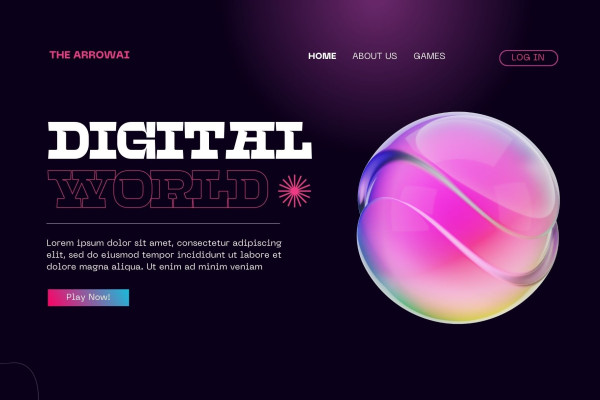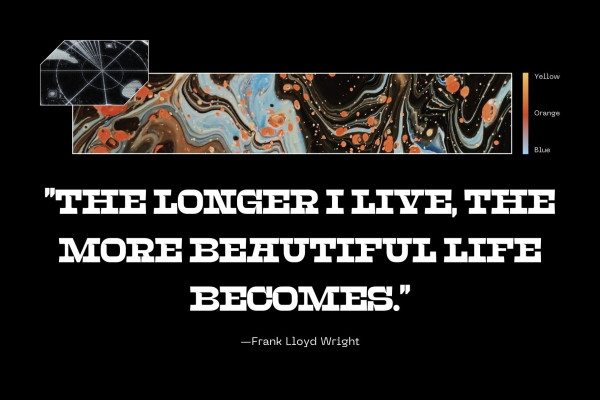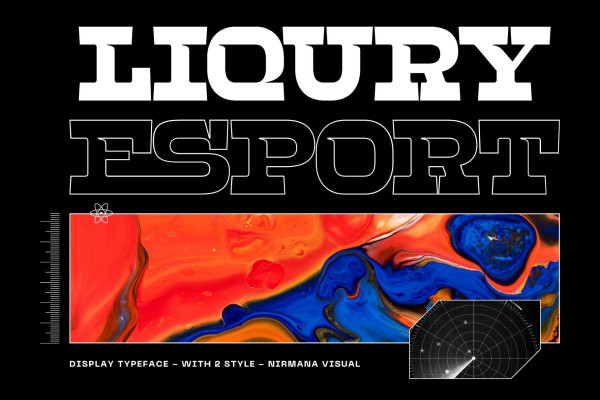
Liqury Esport Font
Liqury Esport Font, is a captivating slab serif texture vintage font that embodies a timeless and nostalgic charm. With its bold and sturdy letterforms, this font brings a touch of vintage sophistication to your designs. The subtle texture adds depth and character, giving your text a weathered, worn-in feel. Whether you’re working on retro-inspired posters, branding, or signage, Esallio Vintage delivers a perfect balance of classic elegance and rugged appeal.